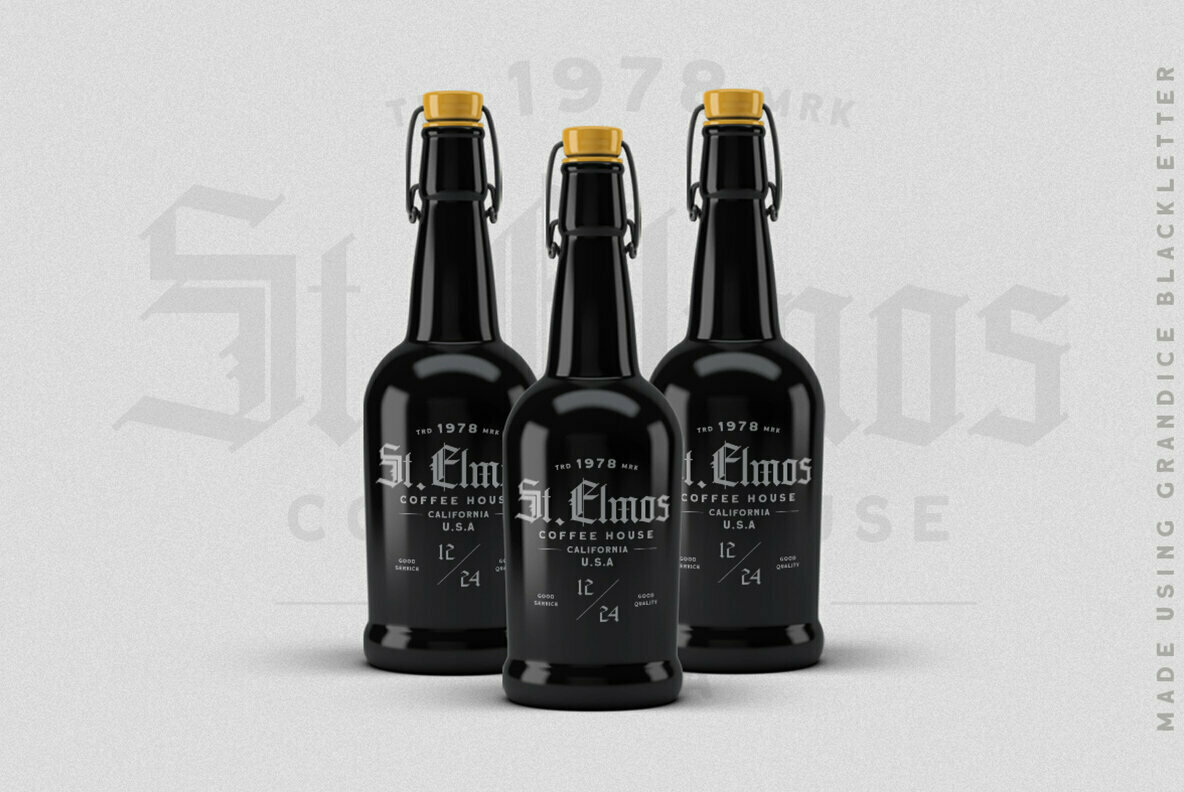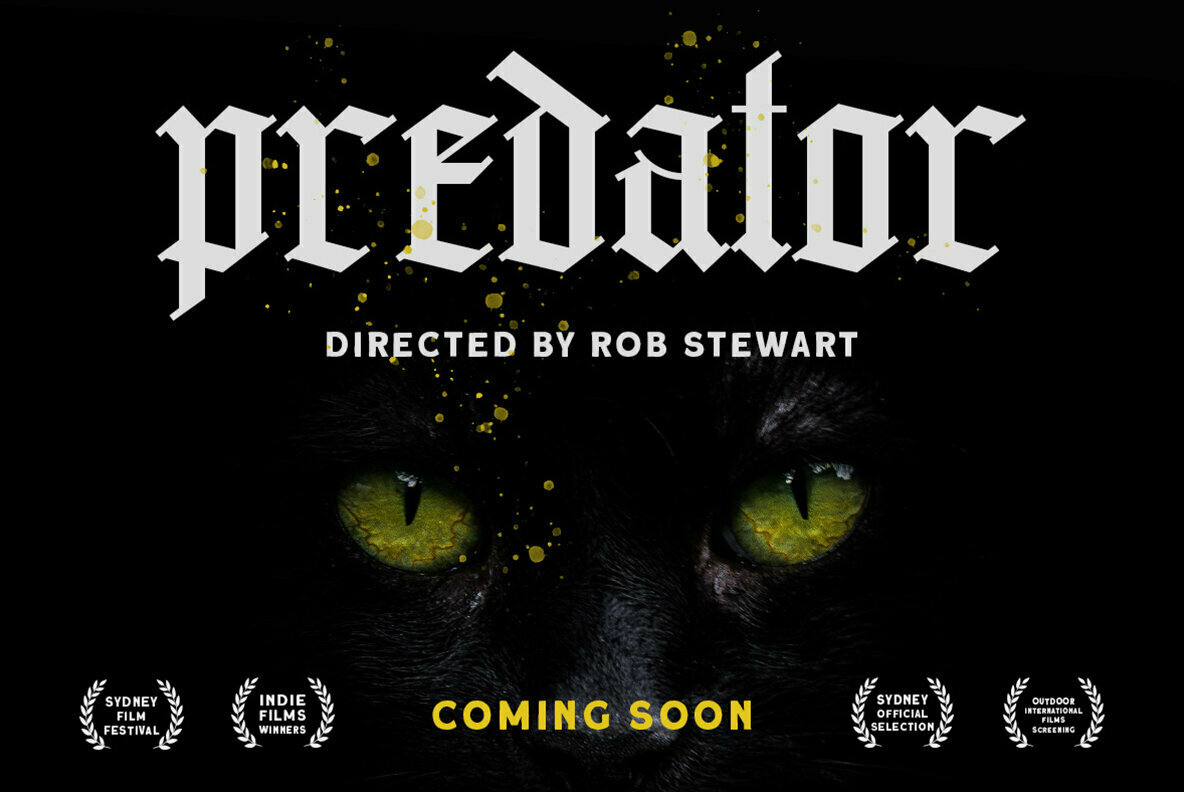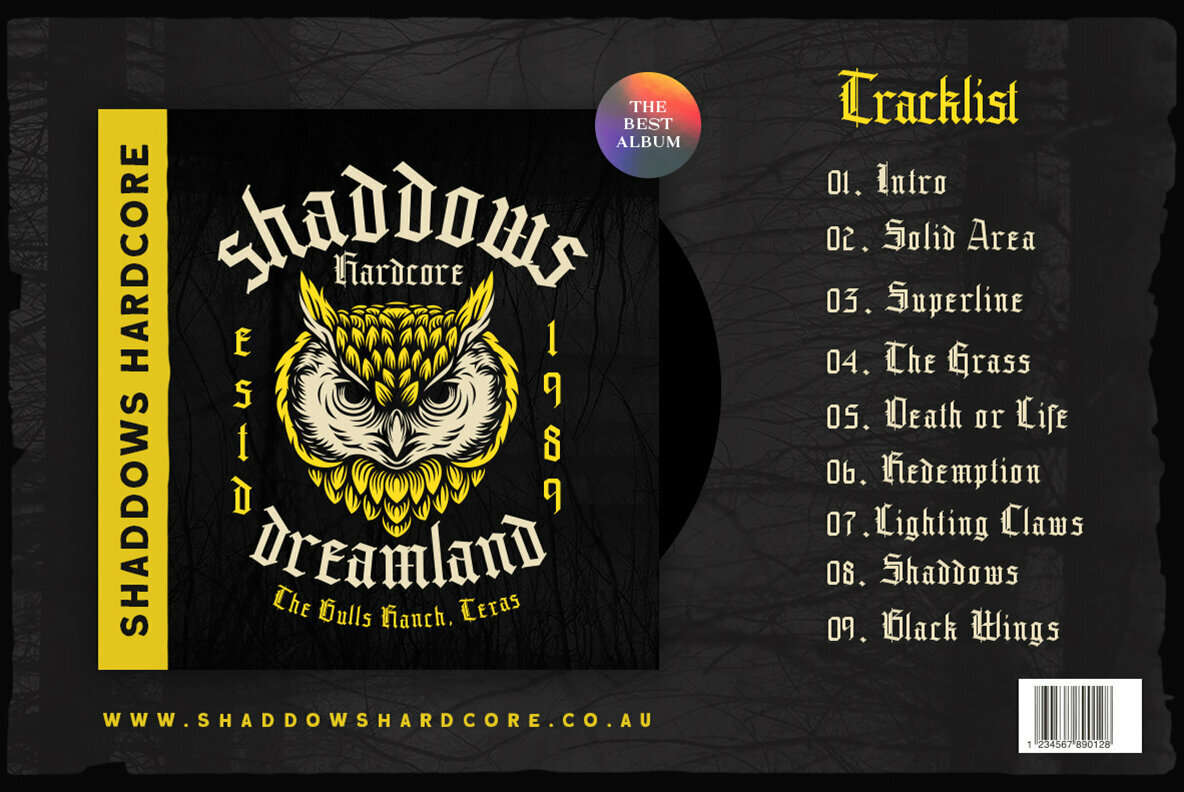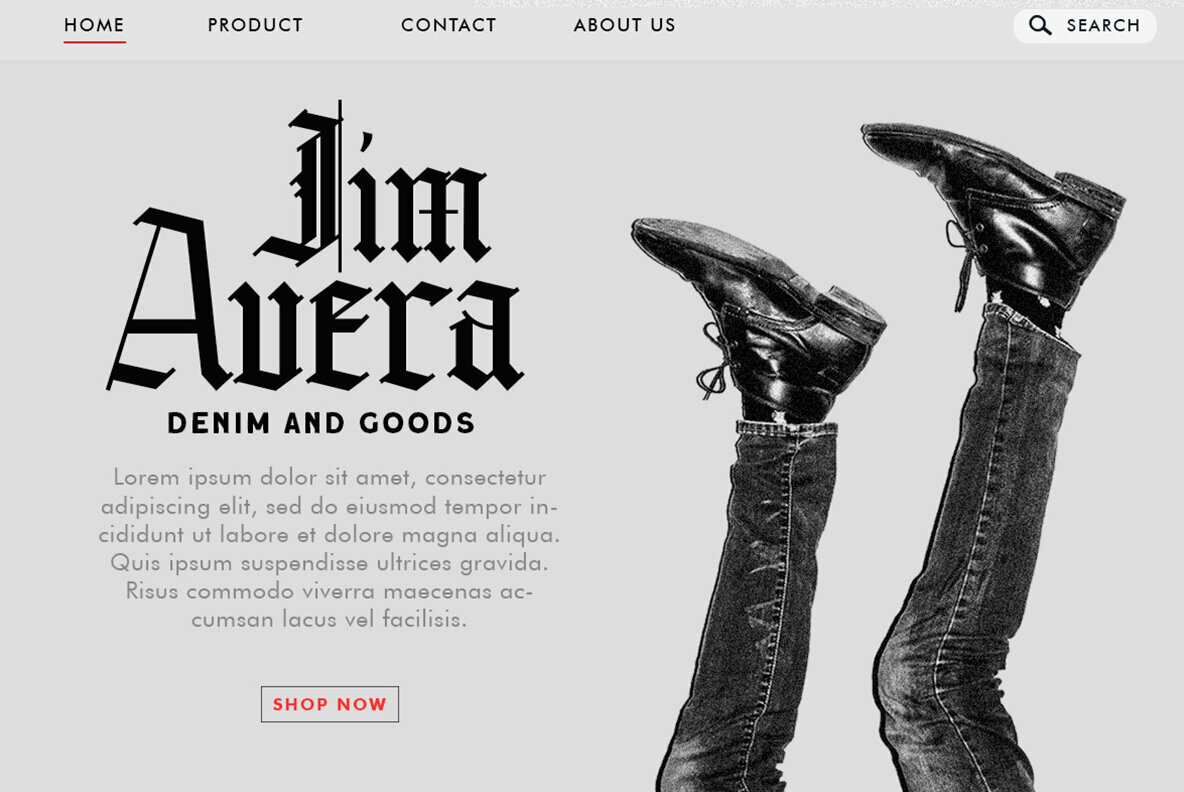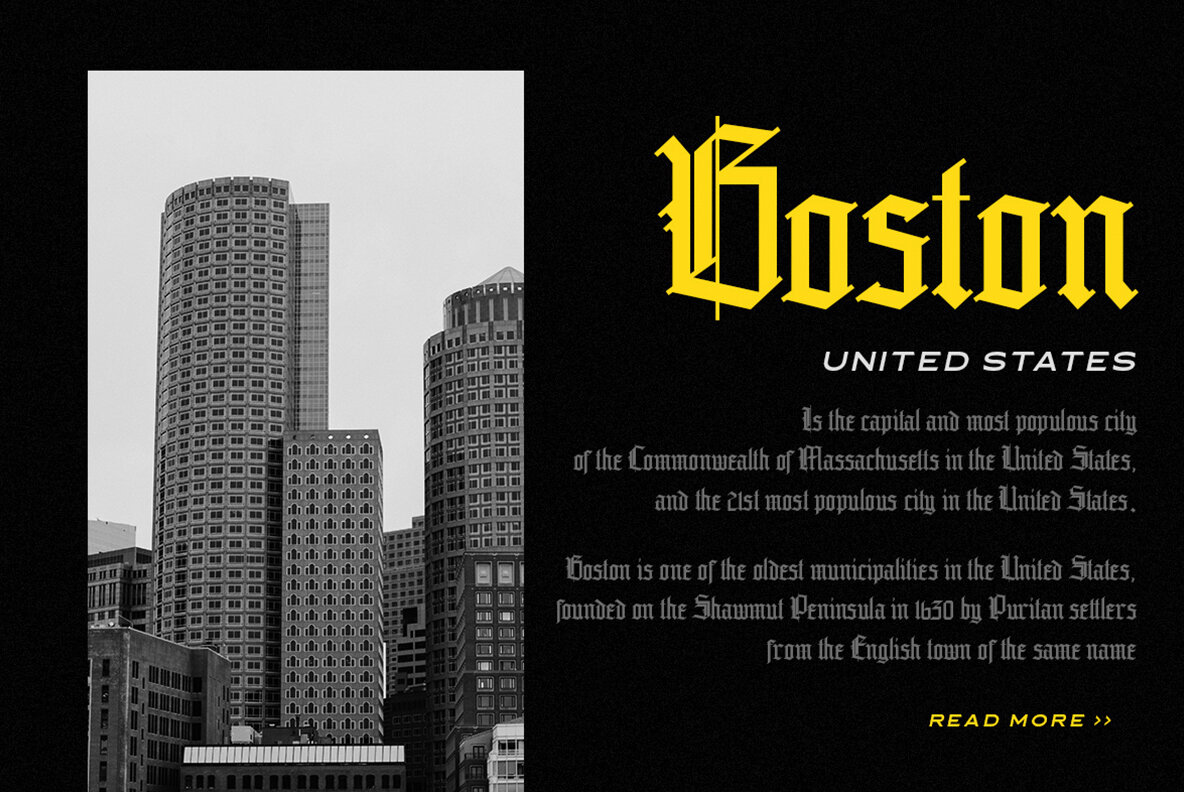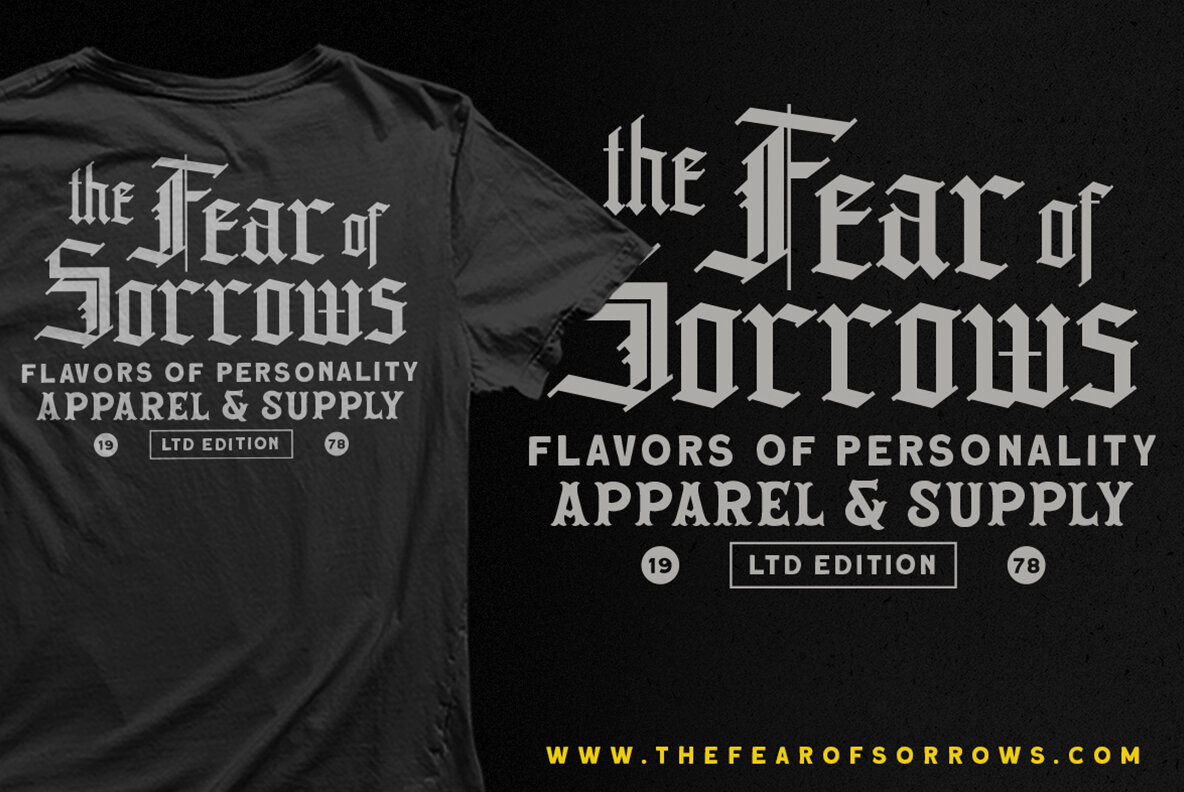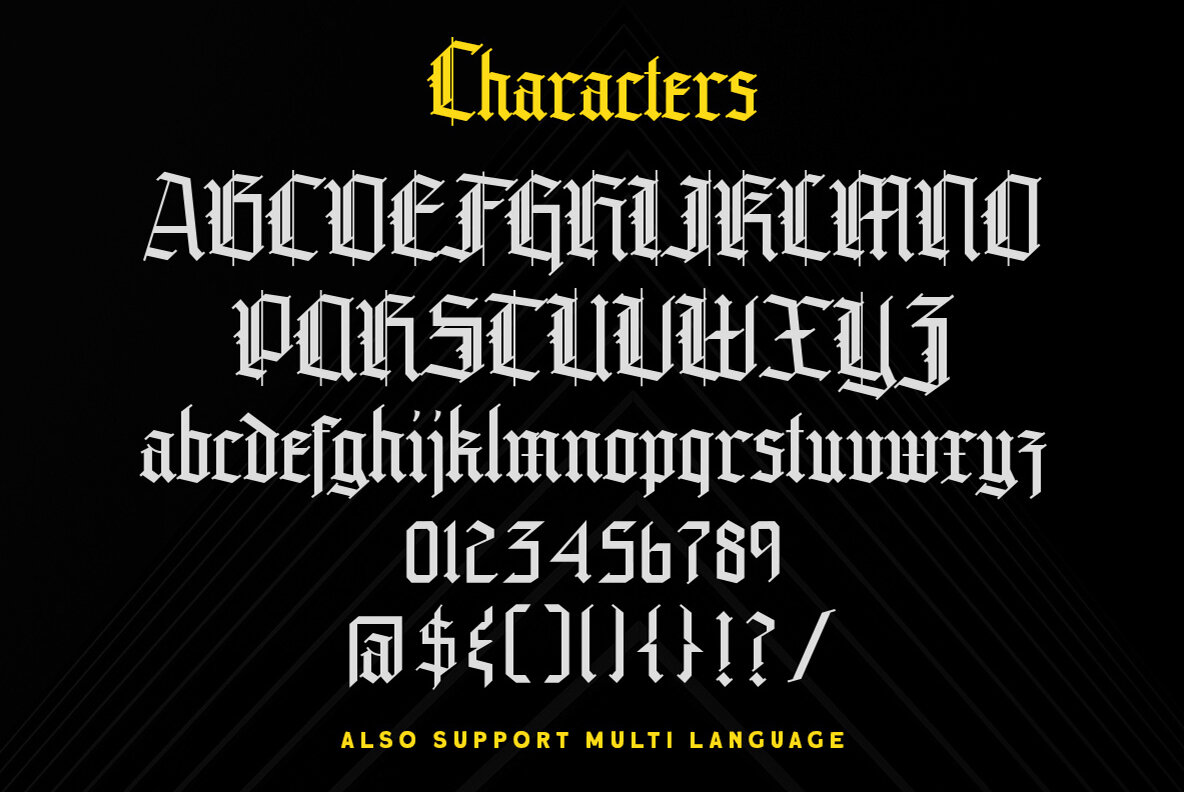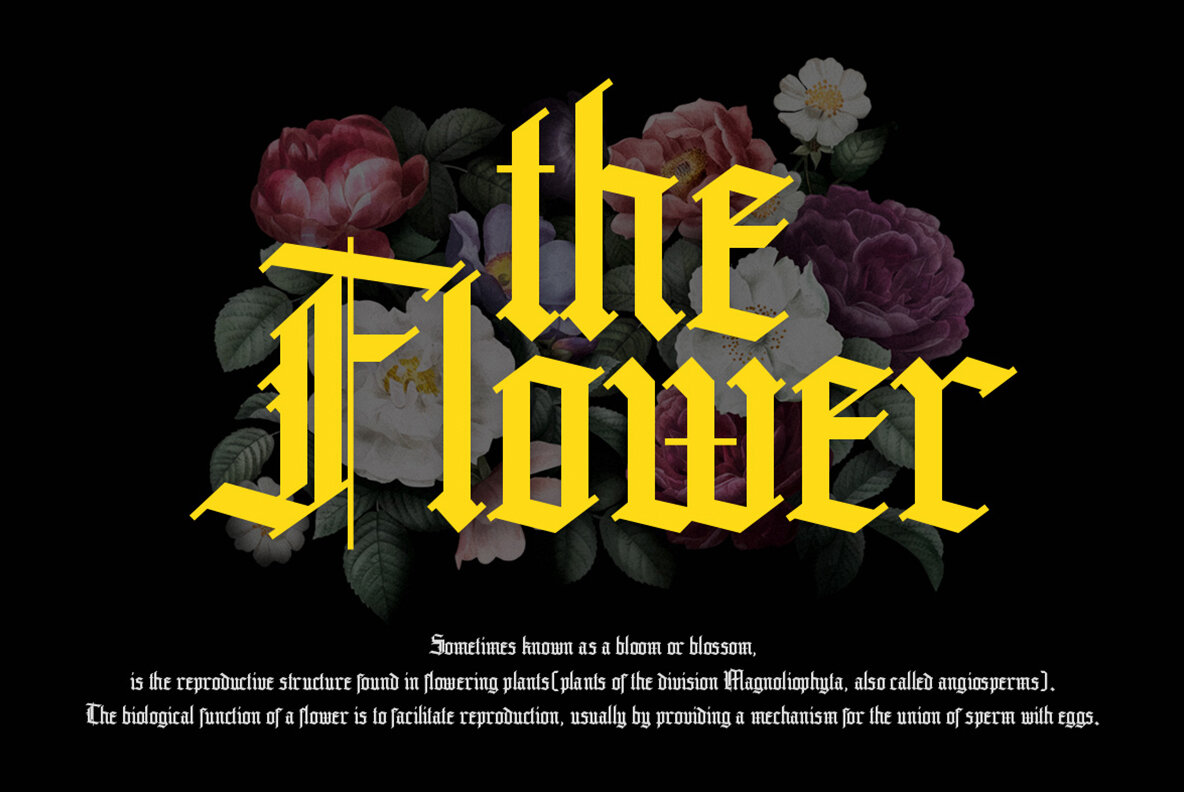
Grandice Font
Grandice
Grandice by Letterhend Studio is an intricately designed blackletter typeface ideal for enhancing your brand's visual identity. Perfectly suited for logos, fashion, clothing design, headlines, and various advertising purposes, Grandice imparts a touch of sophistication and boldness. Maximize the potential of Grandice by using software that supports OpenType features and Glyphs panels, such as Adobe applications and Corel Draw. This will enable full access to all Glyph variations, ensuring a customized touch for your projects.Grandice: A Bold Blackletter Typeface